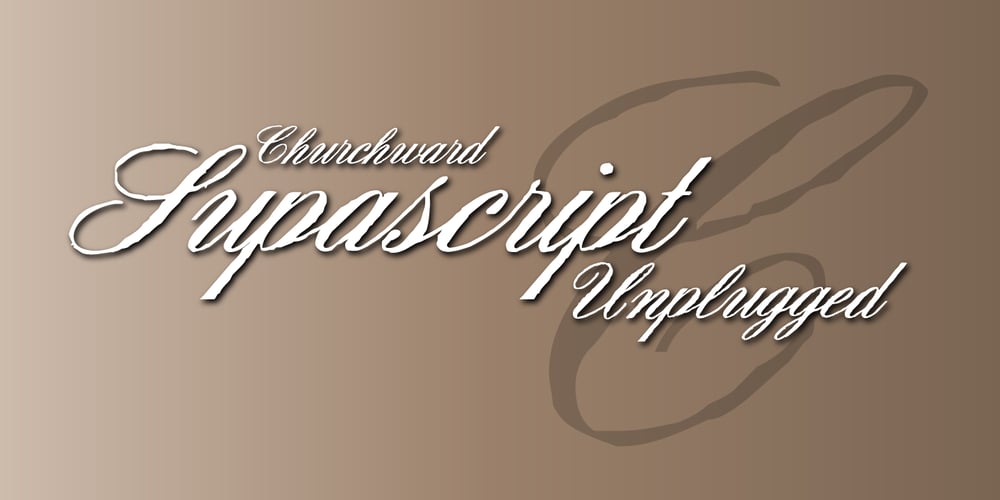
Churchward Supascript
Churchward Supascript font
Churchward Supascript Font Family was designed by Joseph Churchward and published by BluHead Studio. Churchward Supascript contains 1 styles and family package options. Churchward Supascript Unplugged is an OpenType font released by BluHead Studio by the late Joseph Churchward. Supascript is a copperplate style pen script. There are many weights in this family, with more to come later. This particular font is a rough, unrefined version, that we call Unplugged.